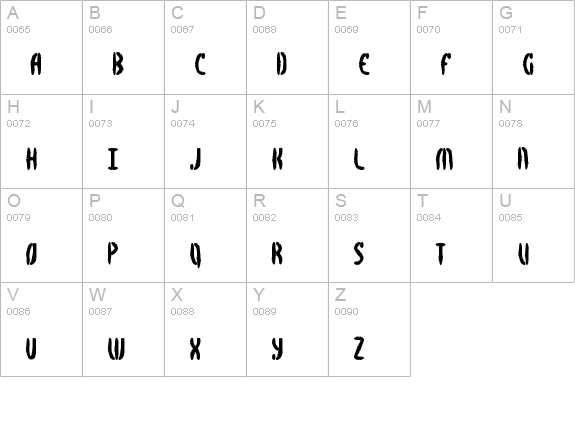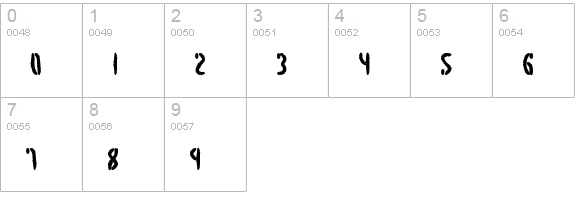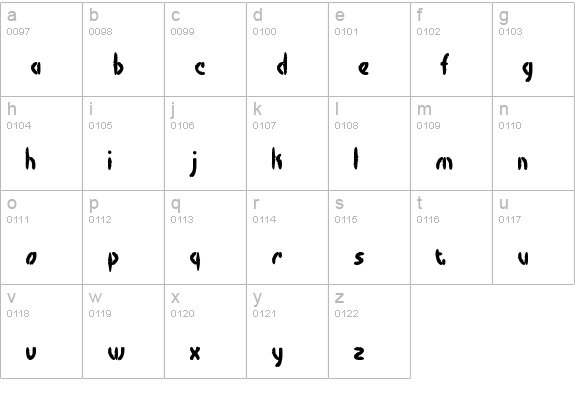
Bocuma Dent BRK Font Details
Bocuma Dent BRK font is a unique and eye-catching typeface that brings a modern twist to traditional letterforms. Its edgy design features sharp corners and jagged edges, giving it a distinct and memorable look. Perfect for adding a touch of creativity to your designs, Bocuma Dent BRK font is versatile and can be used for a variety of projects including logos, branding, posters, and more. The best part about Bocuma Dent BRK font is that it is completely free to download. You can easily access this font at FontsMarket.com and start using it in your projects right away. Whether you're a designer looking to experiment with new styles or a business owner in need of a fresh look for your branding, Bocuma Dent BRK font is a great choice that won't cost you a penny. Download it today and see how it can elevate your designs to the next level.